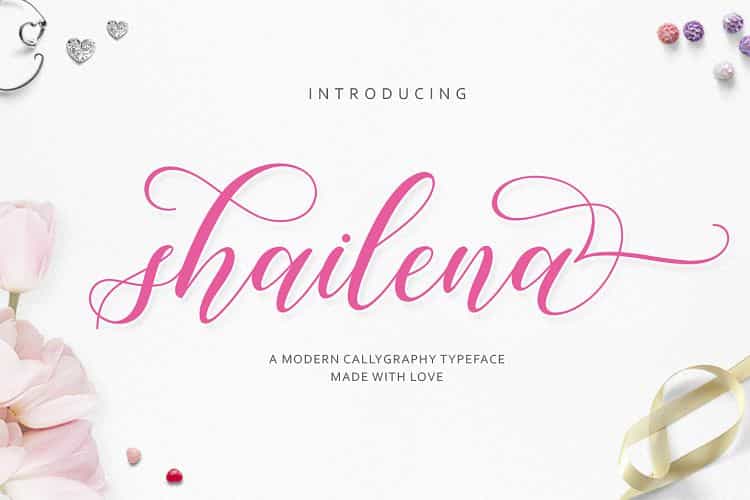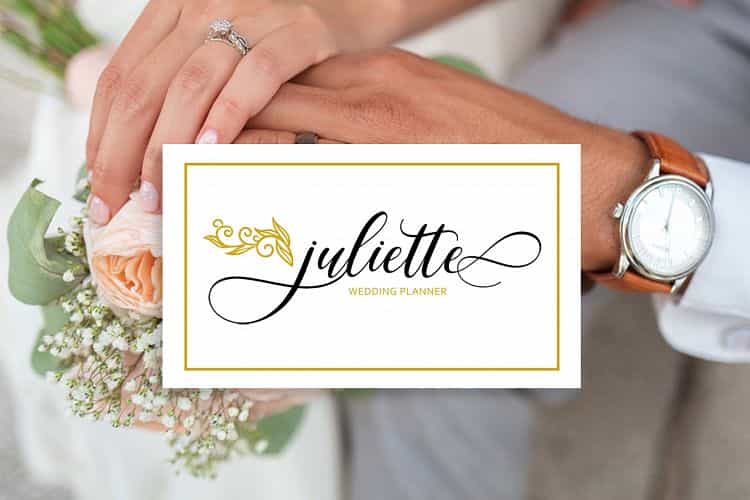
Introducing Shailena font! Shailena is modern script font design where we have hand picked all the letters to make your text look nice. With modern script style this font will perfect for many different project, example: invitations, greeting cards, posters, name card, quotes, blog header, branding, logo, fashion, apparel, letter, stationery and more!